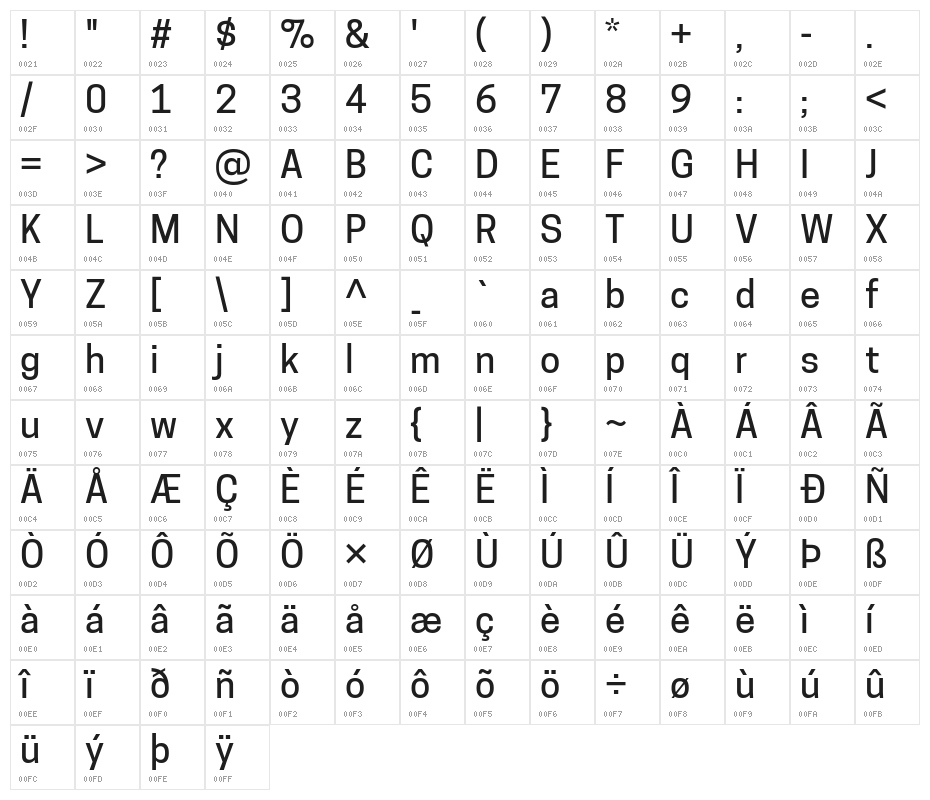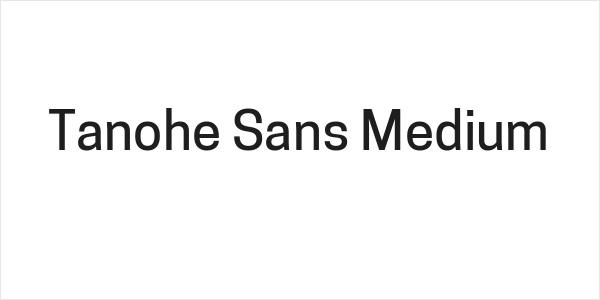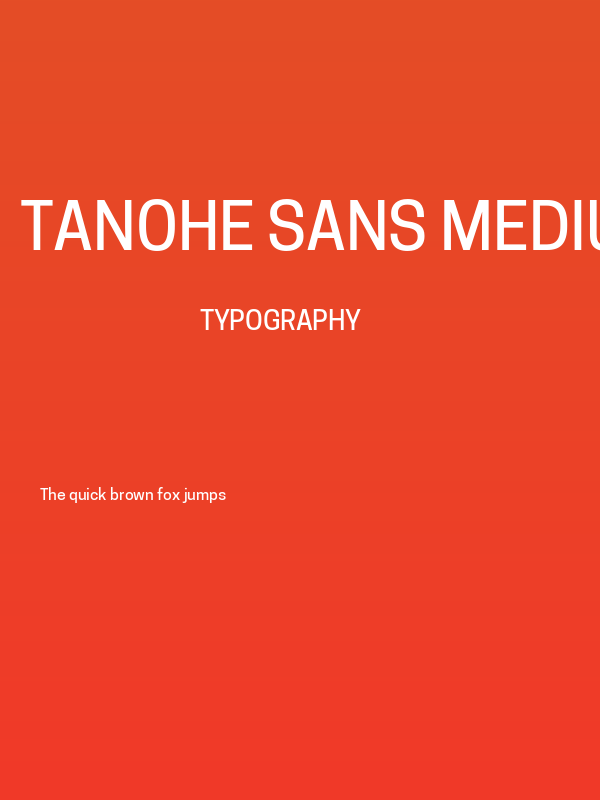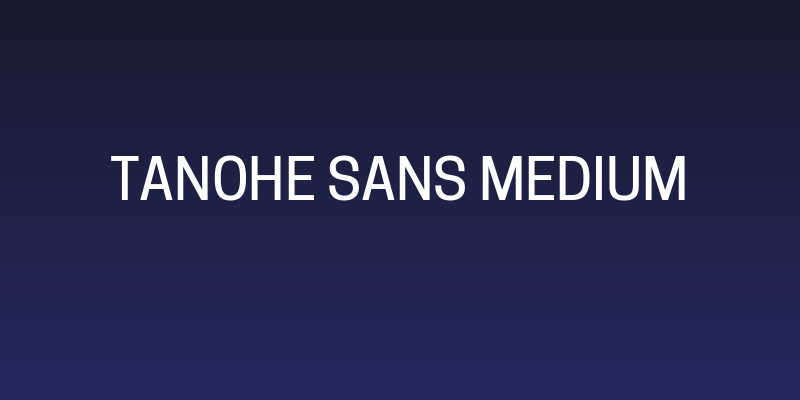
Tanohe Sans Medium Font
Tanohe Sans Medium Description
This font features a clean and modern sans-serif design, characterized by its straightforward and geometric letterforms. The characters are evenly spaced, contributing to a highly legible and professional appearance. The strokes are consistent in width, providing a uniform look across all characters. The uppercase letters are bold and assertive, while the lowercase letters maintain a balanced and approachable style. The numerals are clear and distinct, making them suitable for various applications. The special characters are well-integrated, ensuring versatility in design projects.
Proposed ProjectsIdeal for corporate branding, web design, user interfaces, and editorial layouts.